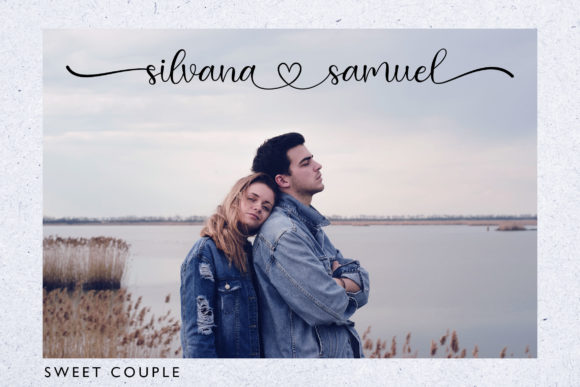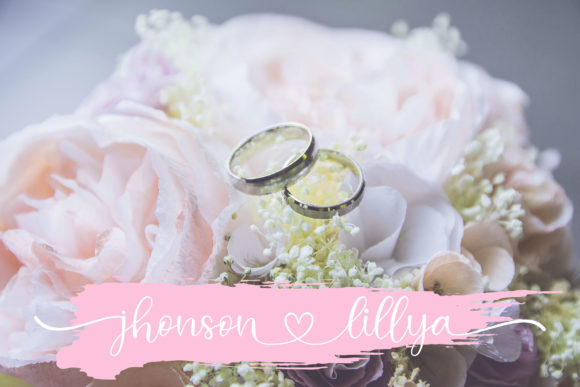
Hello Sweetie Font
db-ku.com - Script & Handwritten -- Hello Sweetie is a delicate and elegant handwritten font. Its distinct and well rounded letters make this font a masterpiece. Fall in love with its incredibly versatile style and use it to create spectacular designs!